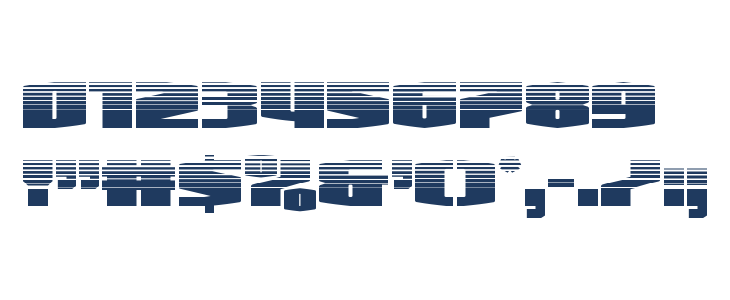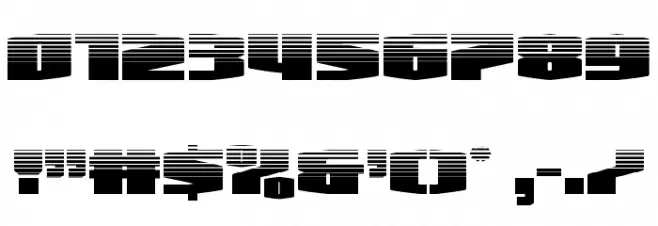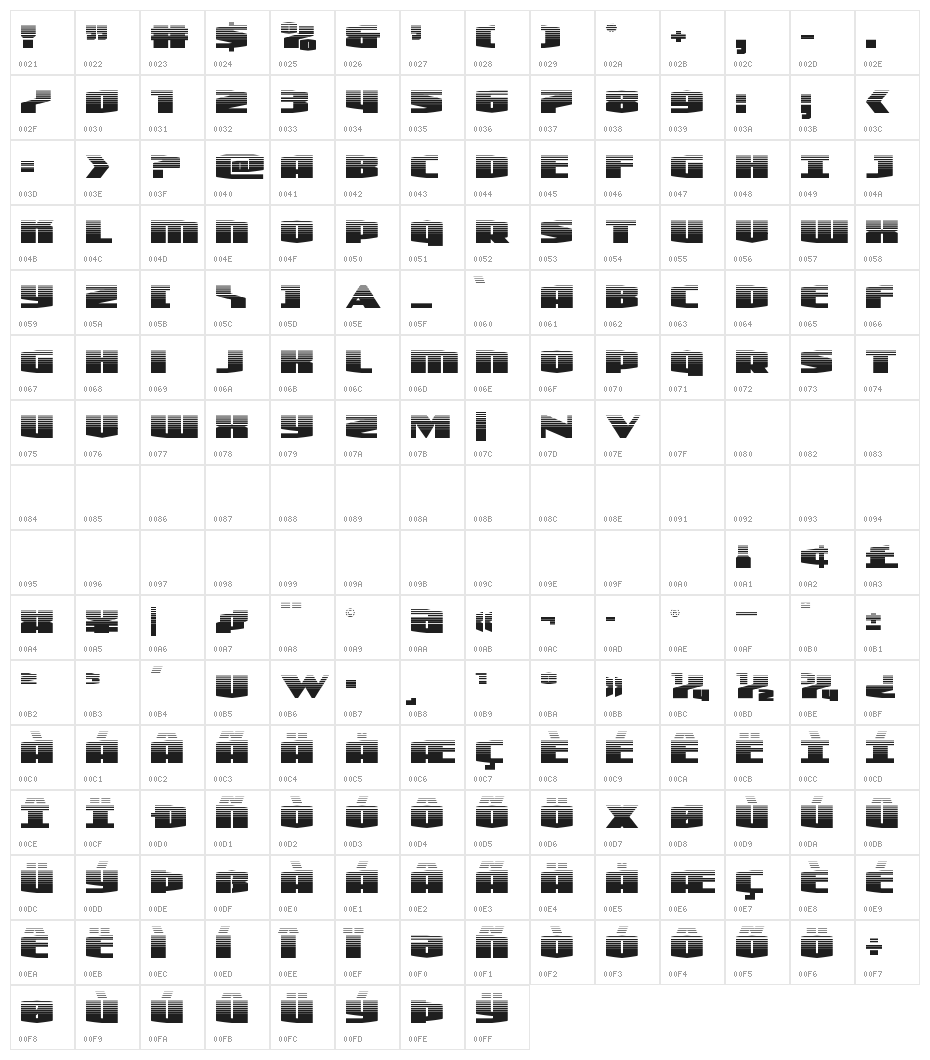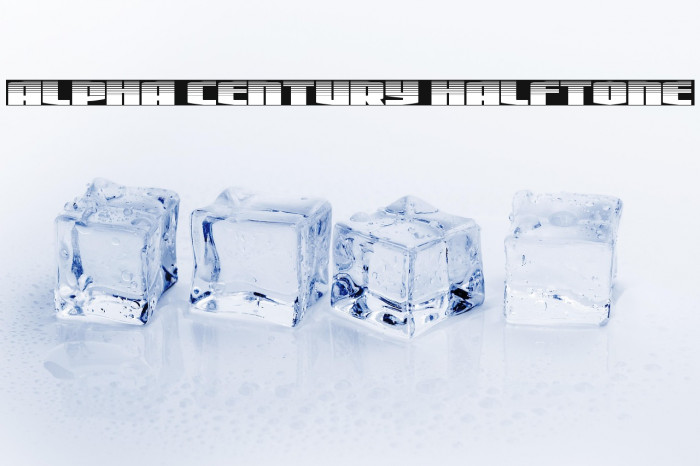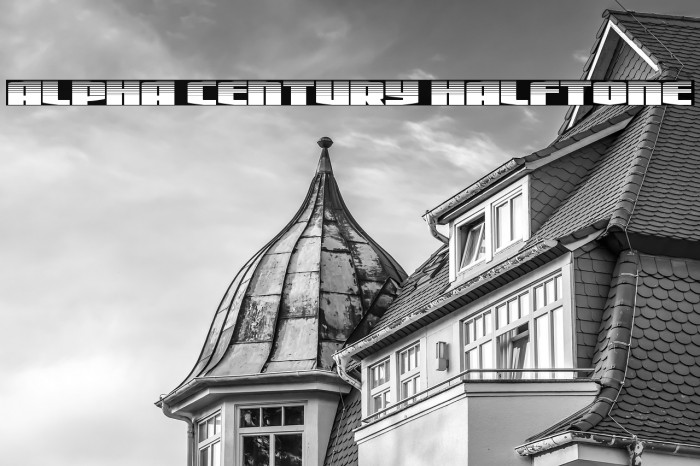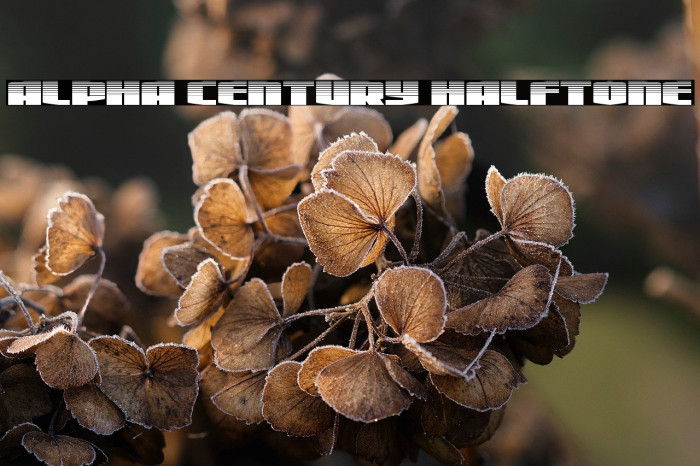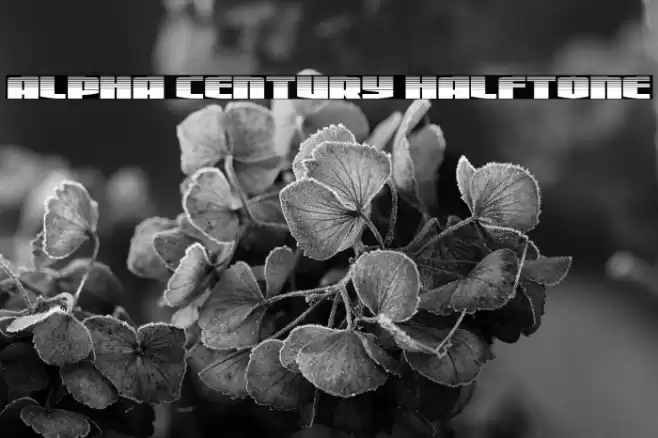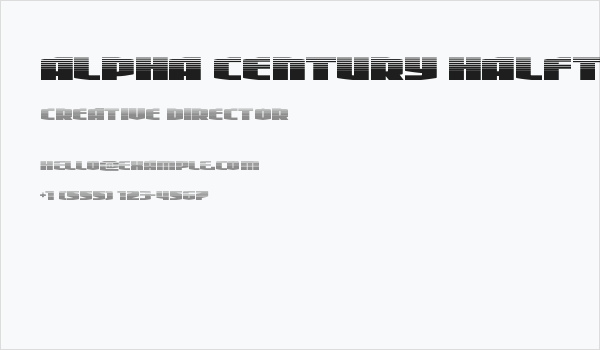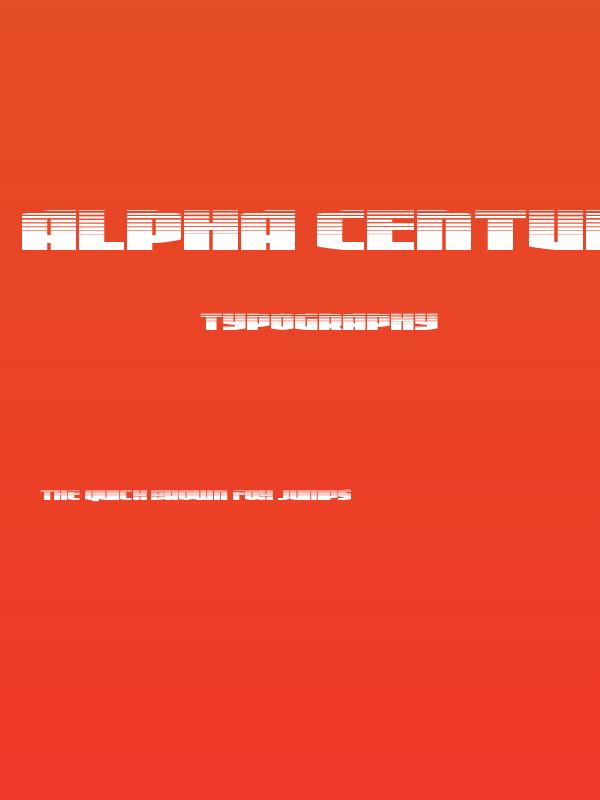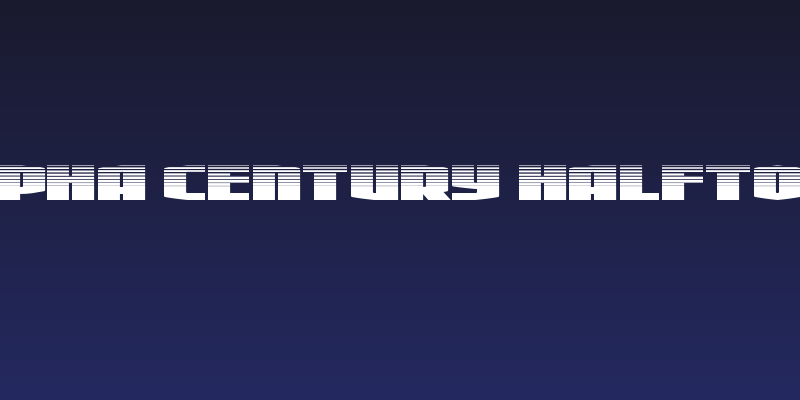
Alpha Century Halftone Font
Alpha Century Halftone Description
This font features a bold, futuristic design with a halftone effect that gives it a unique, digital appearance. The characters are constructed with horizontal lines that create a sense of movement and depth. The uppercase and lowercase letters maintain a consistent style, with sharp edges and a blocky structure. The numerals and special characters follow the same design principles, ensuring uniformity across the typeface. This font is ideal for projects that require a modern, tech-inspired aesthetic.